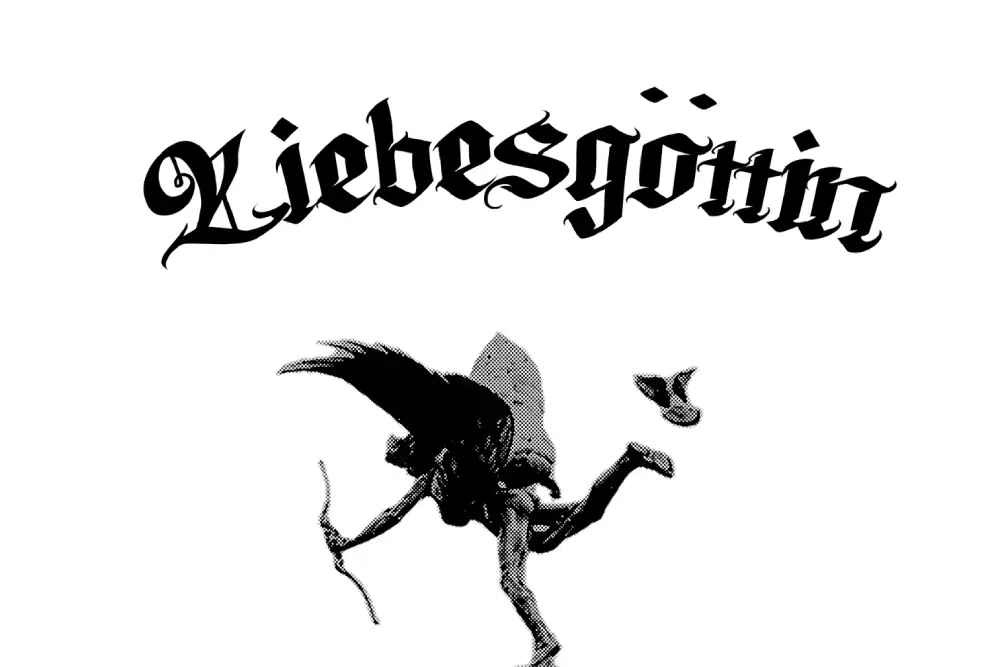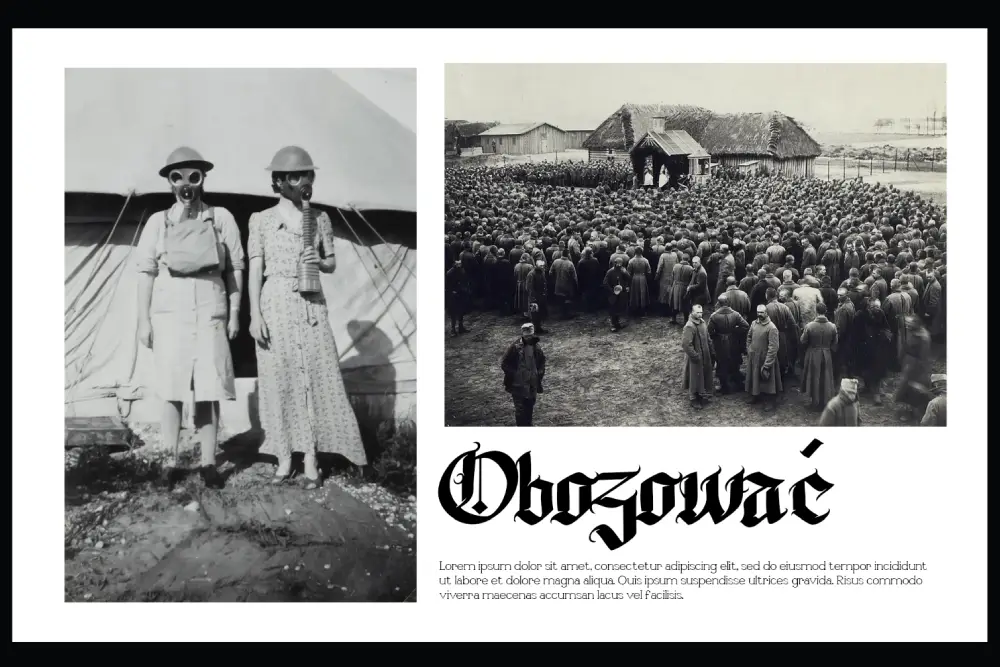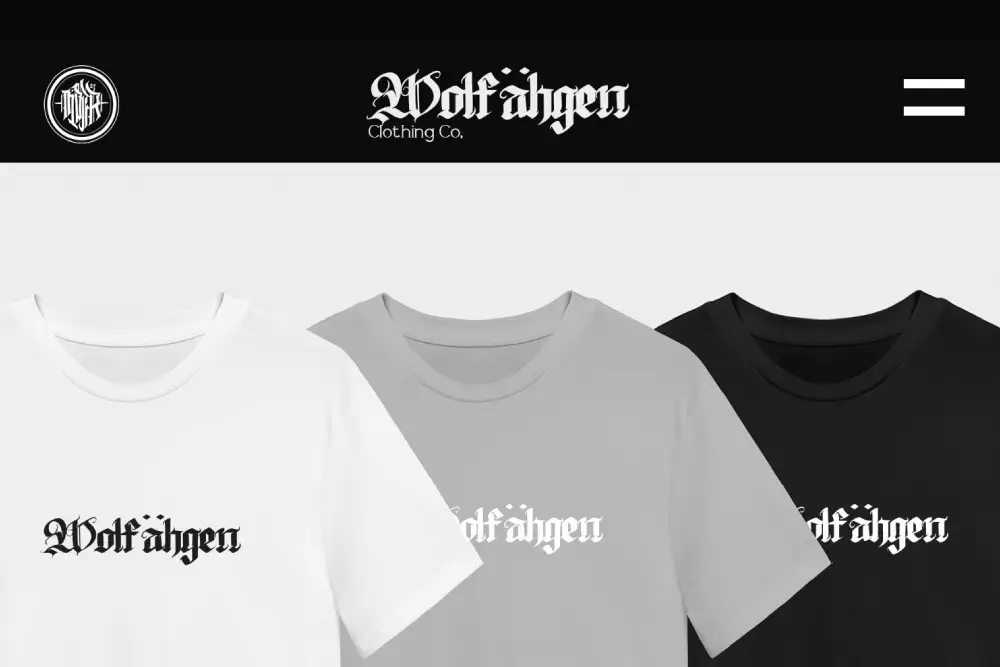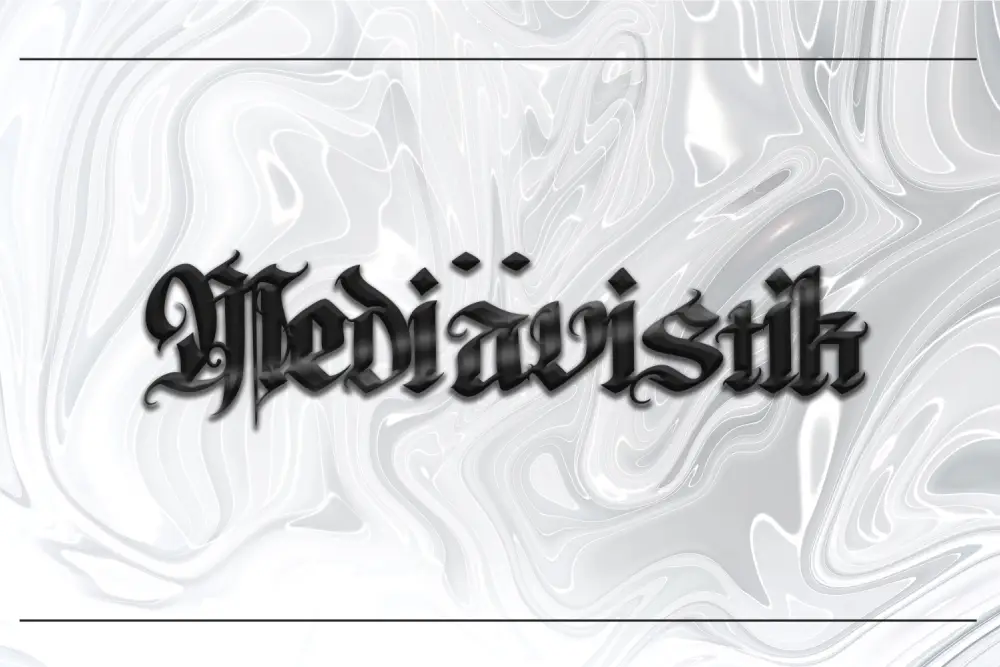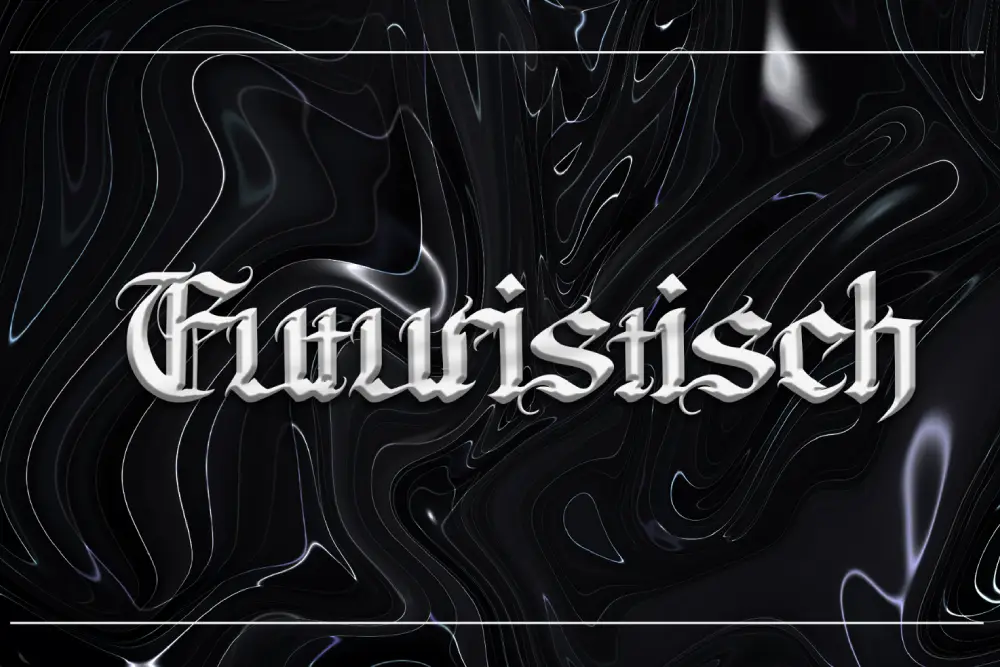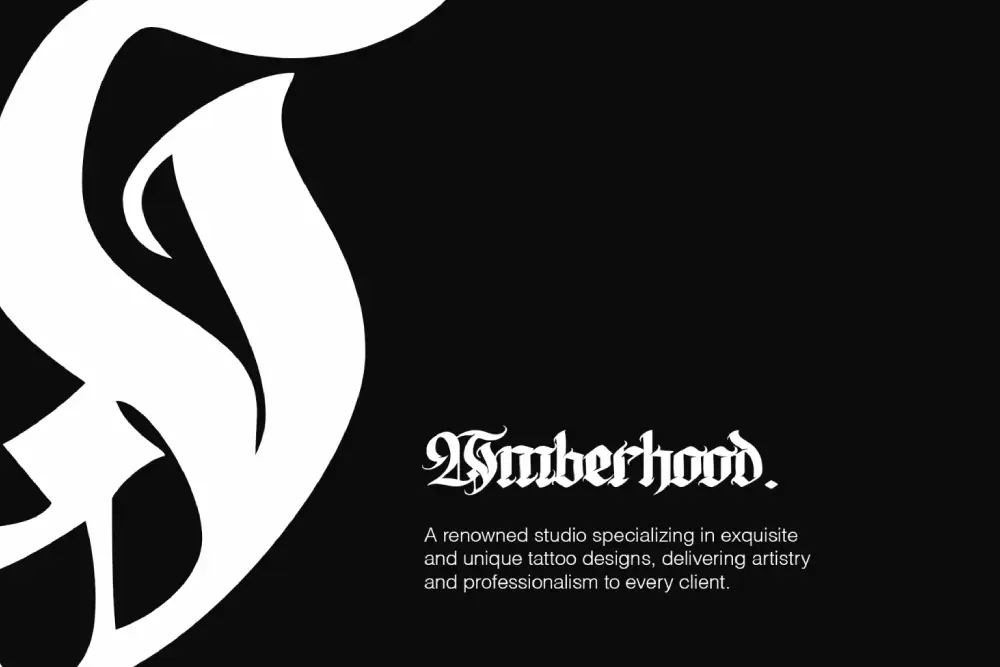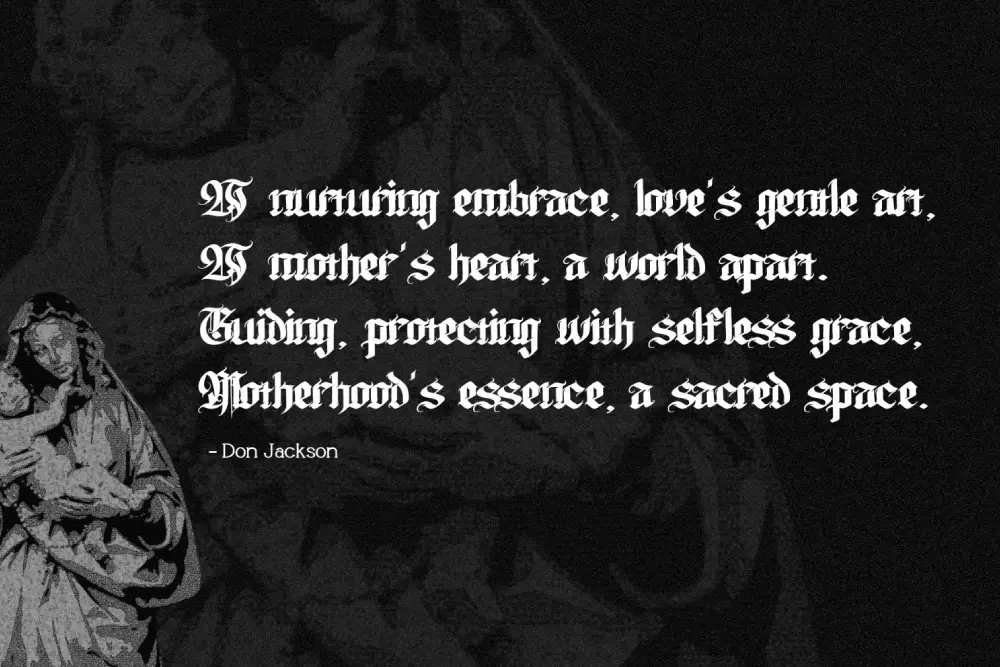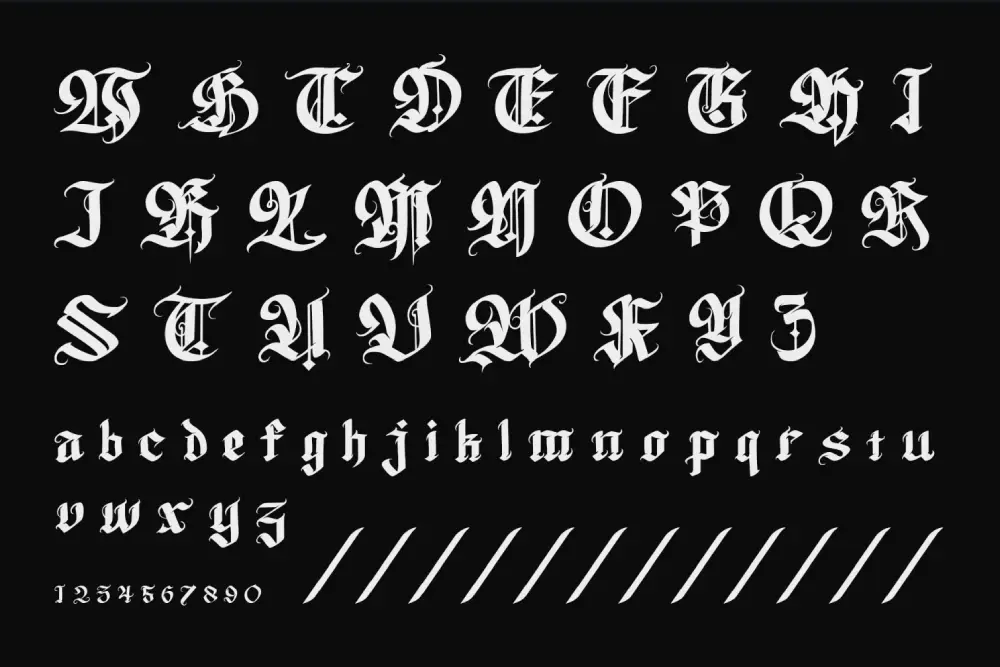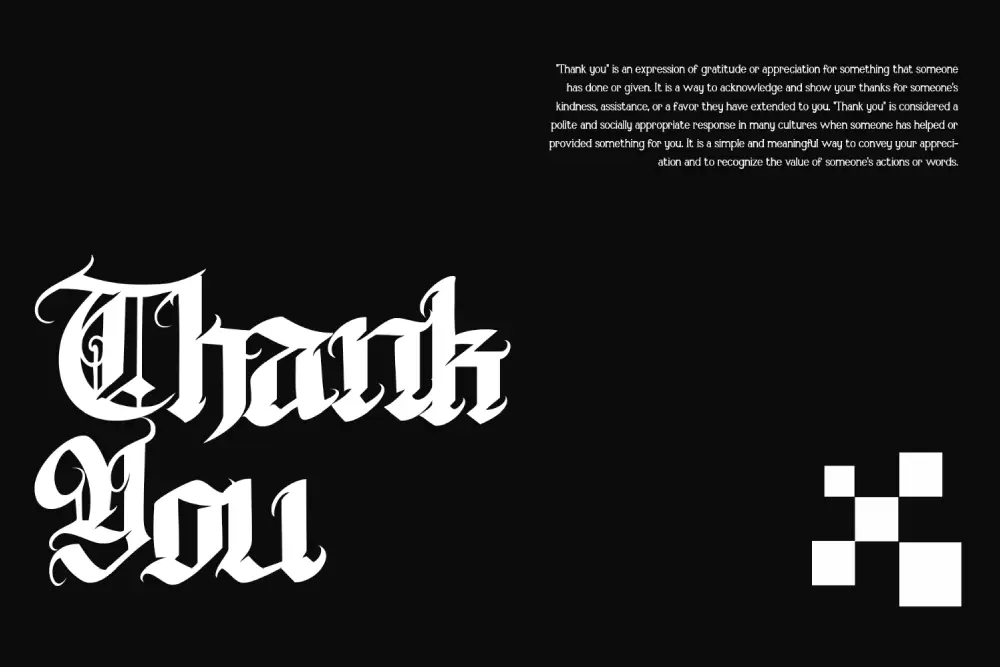
Wolfhagen – Modern Blackletter Font for Bold Gothic Design
Typography defines the tone of design, and few typefaces carry as much strength and heritage as a modern blackletter font. Introducing Wolfhagen – Modern Blackletter Font, a striking fusion of traditional gothic style and modern structure. Built for designers who want to combine historical depth with contemporary edge, Wolfhagen stands out in logos, posters, branding projects, and creative digital artworks.
This modern blackletter font transforms medieval character into a versatile, readable, and stylish design tool that fits modern aesthetics perfectly. Whether you’re designing for metal bands, tattoo studios, editorial layouts, or luxury branding, Wolfhagen brings power and authenticity to every project.
Modern Blackletter Font with Contemporary Strength
Wolfhagen isn’t just a revival of old gothic type—it’s a reimagining. This modern blackletter font carries the core beauty of blackletter calligraphy while sharpening it with clean geometry and consistent weight. The result is a typeface that’s bold, legible, and powerful enough to lead contemporary visual identities.
Each curve, serif, and diagonal cut in Wolfhagen creates a sense of motion and intensity, making it perfect for display use in headlines and posters. The modernized details ensure balance between heritage and digital adaptability.
Key Features of Wolfhagen – Modern Blackletter Font
Every element of Wolfhagen – Modern Blackletter Font was built to empower professional designers:
- Uppercase, Lowercase, Numbers, Punctuations
- Support Multilingual for international design projects
- Modernized Gothic Aesthetic for bold and refined visuals
- Perfect for Display Use: Logos, posters, merchandise, and brand marks
- Balanced Readability despite intricate gothic elements
- Strong Geometry: Ideal for headlines and impactful titles
Why Designers Love Wolfhagen
Designers love Wolfhagen because it delivers an authentic blackletter vibe with a modern twist. Many gothic typefaces are visually intense but hard to read. Wolfhagen solves this with a clean design system that preserves old-world charm without sacrificing legibility.
Here’s why creative professionals embrace this modern blackletter font:
- Versatility – Works for both digital and print projects.
- Elegance with Edge – Balances power and beauty perfectly.
- Cultural Depth – Draws from gothic history while fitting current trends.
- Pairing Potential – Complements other modern and brush fonts for hybrid aesthetics.
Wolfhagen for Branding and Logo Design
When creating bold branding or luxury logos, typography becomes your identity. Wolfhagen’s modern blackletter font structure helps brands communicate heritage, exclusivity, and power.
It’s perfect for high-end beverage labels, tattoo parlors, rock bands, or modern luxury fashion branding. The uppercase characters project authority, while the lowercase details add authenticity and depth.
Wolfhagen for Posters and Visual Art
Posters need character—and Wolfhagen delivers it. This modern blackletter font shines in titles, event graphics, movie covers, and band artwork. The sharp gothic strokes make every letter feel alive and commanding.
Modern Blackletter Font for Digital Use
Wolfhagen performs just as well online as it does in print. Its strong letterforms maintain clarity on screens, making it an ideal modern blackletter font for YouTube thumbnails, podcast artwork, esports branding, and digital marketing campaigns.
Multilingual support ensures Wolfhagen’s flexibility across global audiences, while its consistent geometry ensures readability in motion graphics or social media headers.
- Category: Modern Blackletter Font
- Best Uses: Branding, Posters, Logos, Editorials, Digital Design, Tattoo Aesthetic
Wolfhagen pairs best with typefaces that balance its gothic presence. Try combining it with: